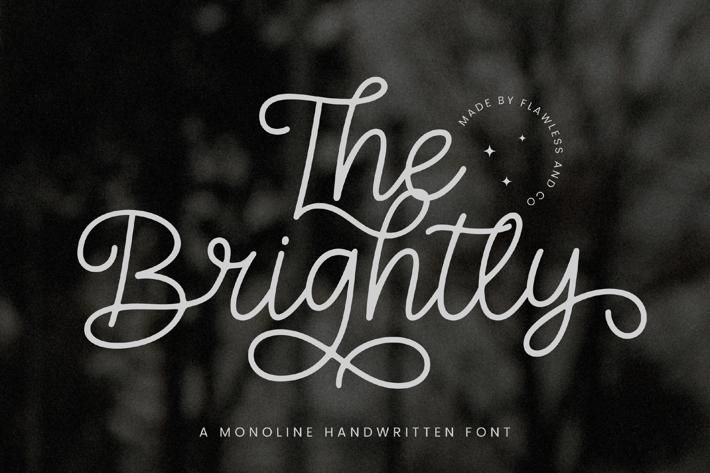
The Brightly Monoline Script Font
Introducing "The Brightly" - A Modern Monoline Script Font. Embrace contemporary elegance and versatility with "The Brightly," a modern monoline script font that adds a touch of sophistication and fluidity to your designs. With its graceful lines and effortless charm, "The Brightly" is designed to convey a sense of modern style and versatility.